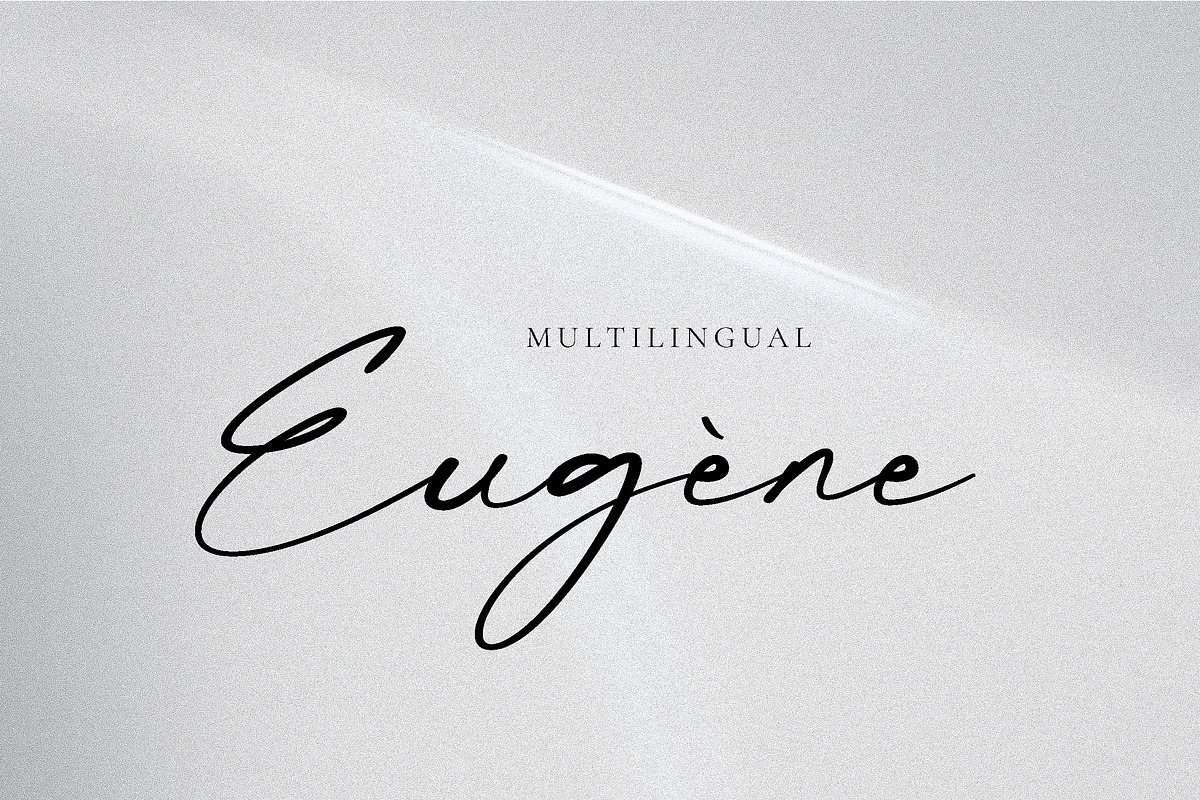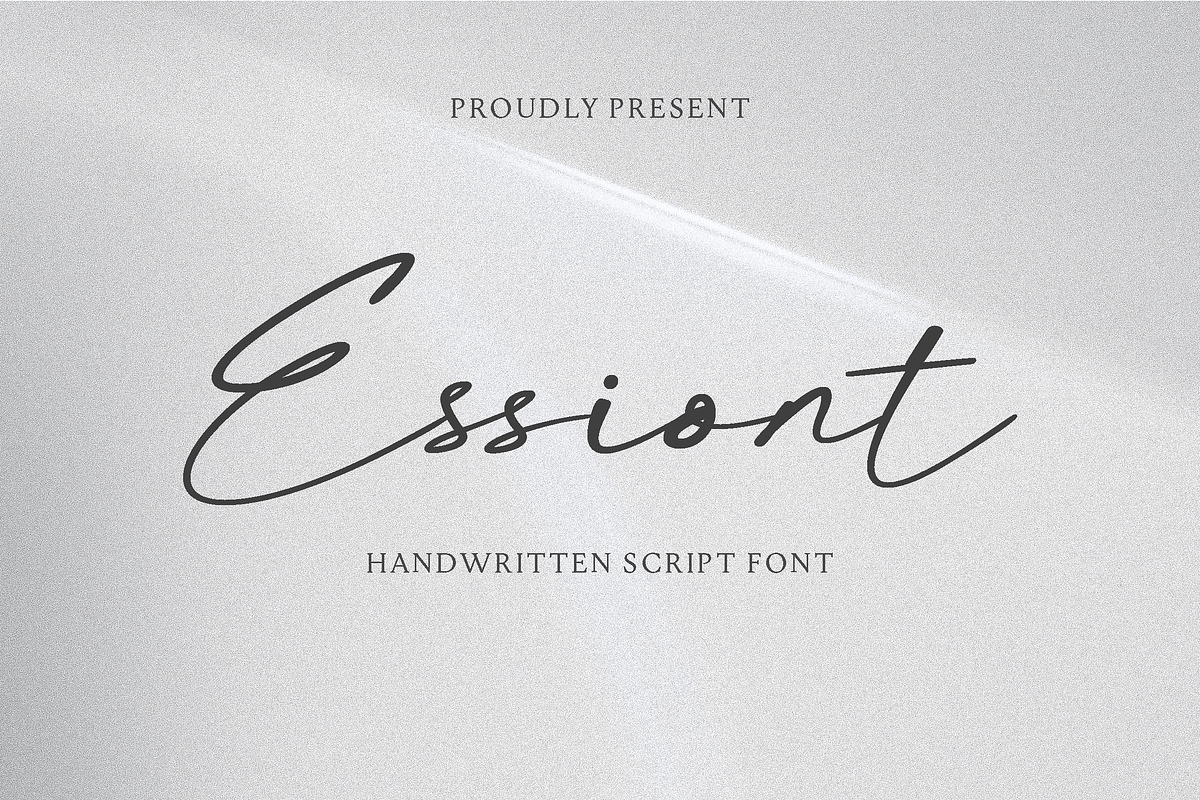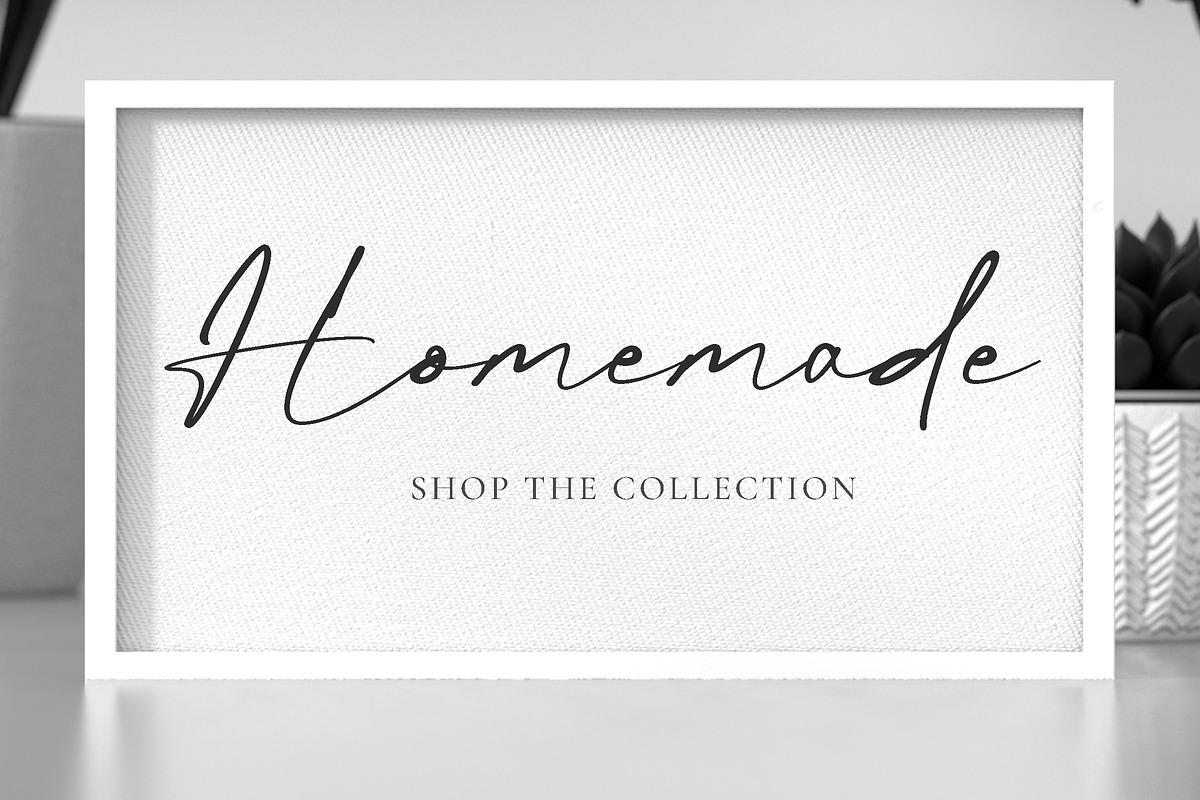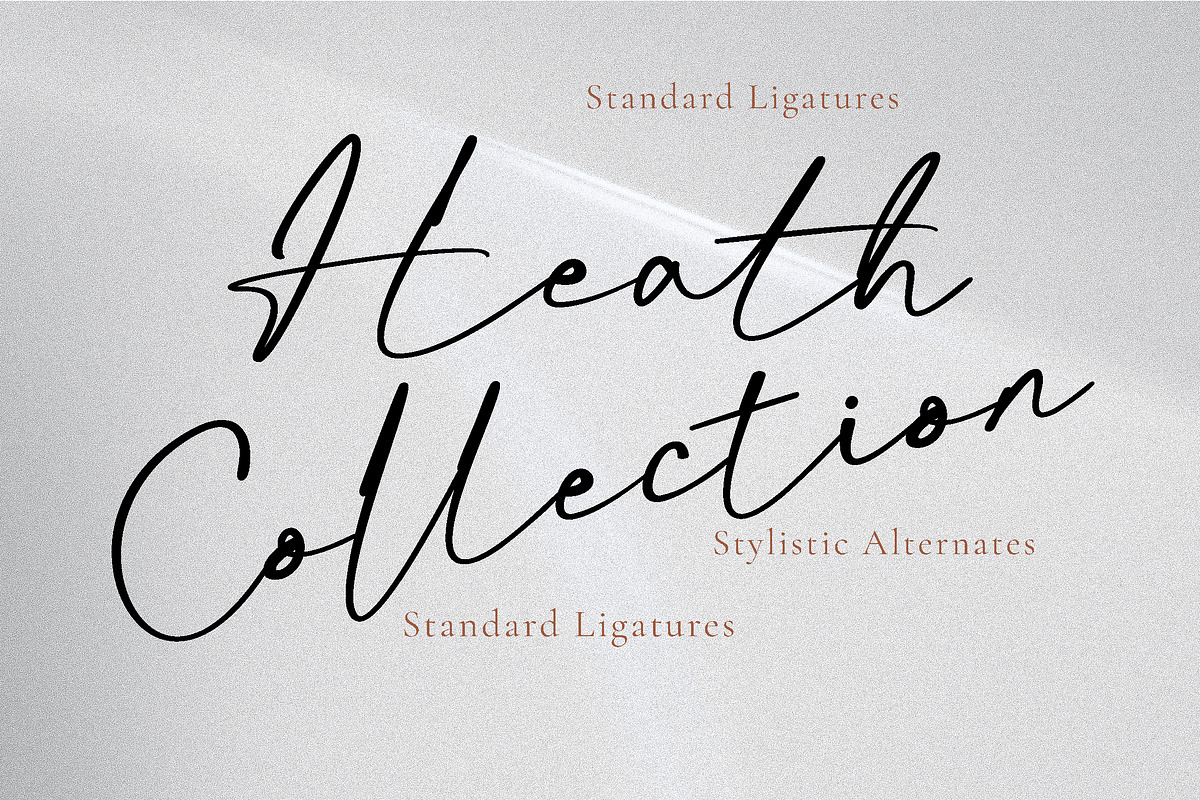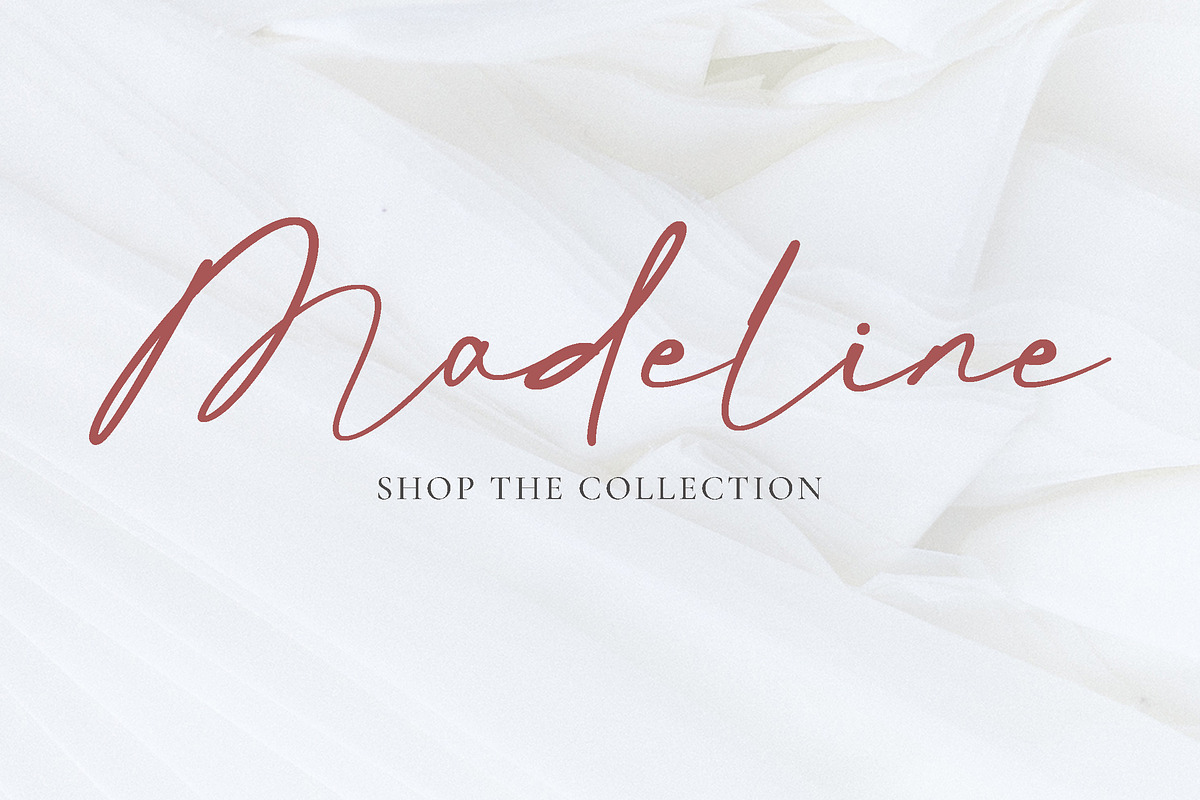
Essiont - elegant script font
Essiont is a elegant, and flowing handwritten font. It has beautiful and well-balanced characters and as a result, it matches a wide pool of designs. Add this font to your favorite creative ideas and notice how it makes them come alive!